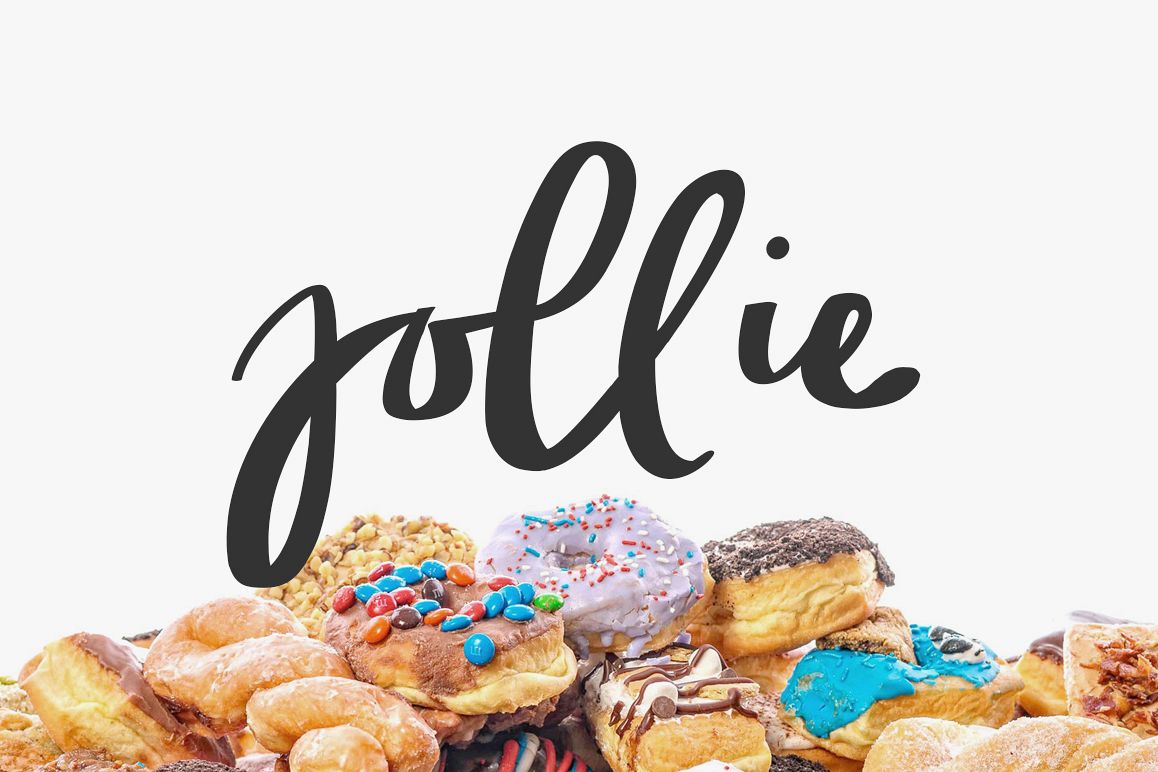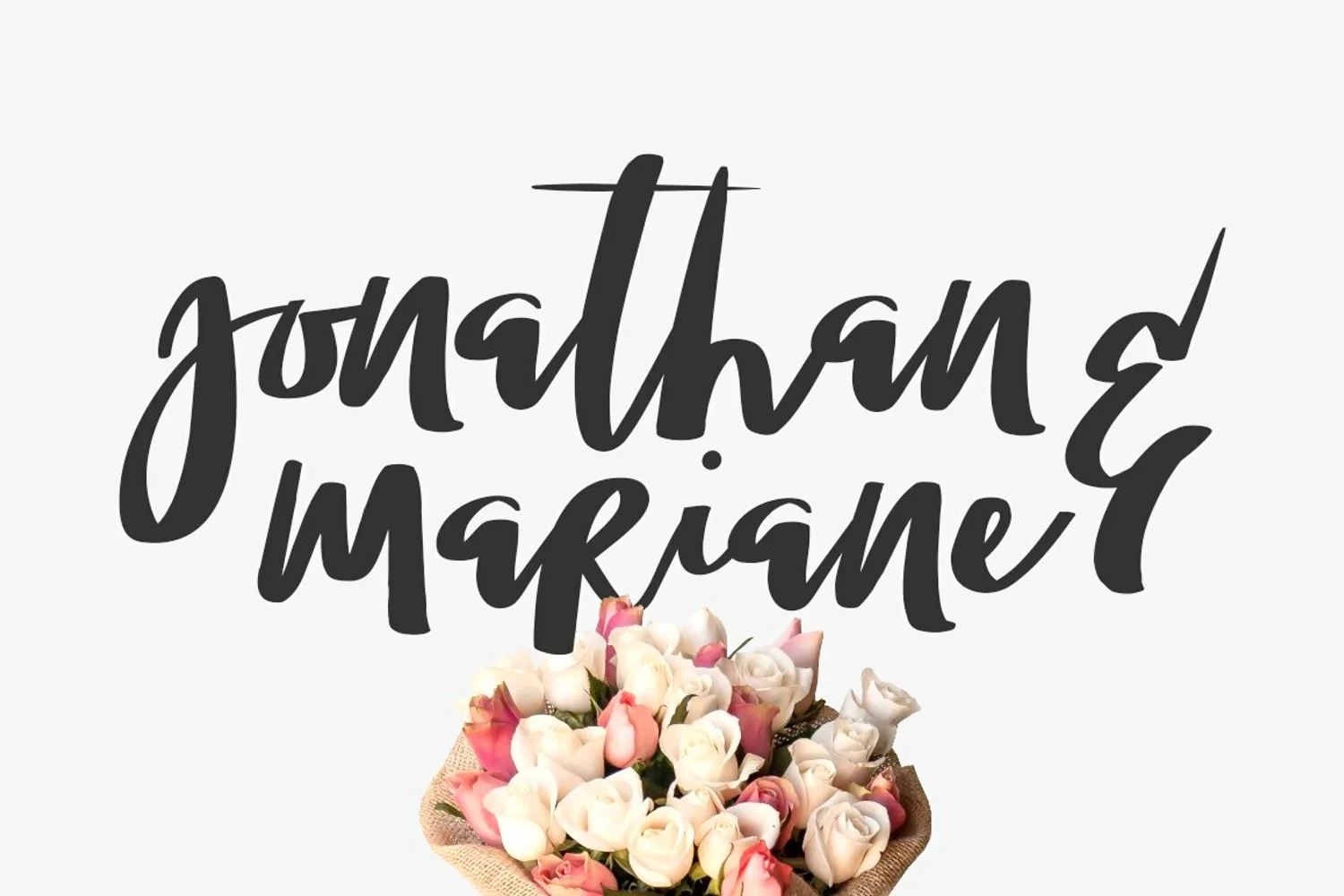
Give your designs an authentic handcrafted feel. "Jollie Typeface" is perfectly suited to logo, stationery, branding, typography quotes, magazine or book cover, website header, clothing, branding, packaging design, restaurant and more. Included Stylistic Alternates. Use the alternates in Adobe Illustrator and Adobe Photoshop, this is the quick tutorial: https://youtu.be/sV2dpD7oTuw License: This font included for personal, commercial use, multiple projects, behalf of a client. Fonts may be printed on to products that are subsequently sold, websites and within website design. Graphics may be printed on to products that are subsequently sold when an effort is made to use them as part of a new design including a variation of other graphics or fonts.This font available on OTF and TTF formats.